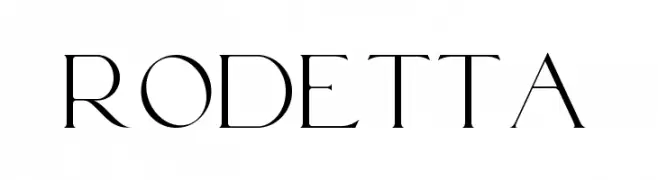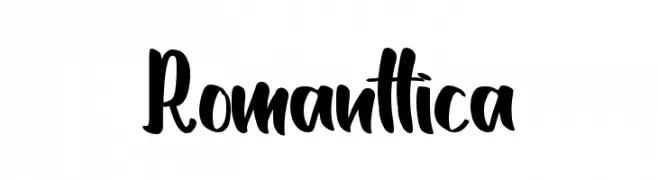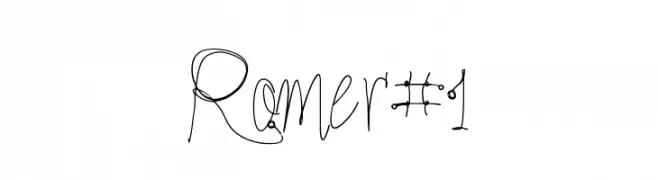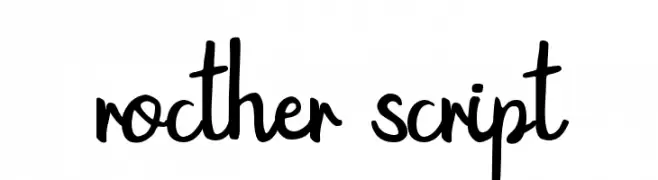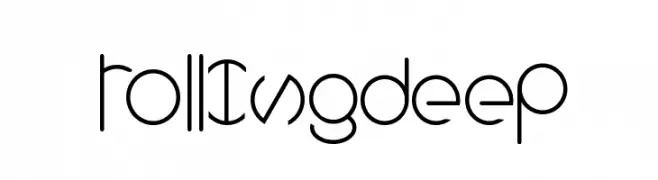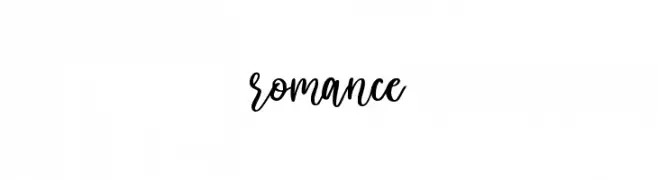
A bold, textured font with a rugged, rock-like appearance.
A bold, edgy font with sharp, angular lines and a modern, rebellious style.
A lively and flowing script font with smooth, continuous strokes.
An elegant script font with flowing, cursive characters and intricate flourishes.
A modern, high-contrast font with elegant, sophisticated characters.
A modern, artistic font with smooth curves and sharp angles.
An elegant, flowing script font with a romantic and sophisticated style.
A bold, expressive handwritten font with smooth curves and thick strokes.